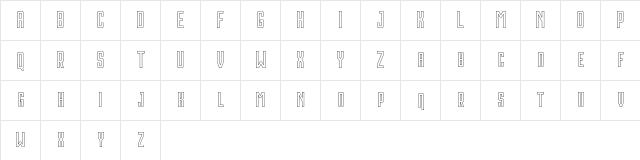
Houston Outline Regular
Design Context for Houston Outline Typeface
Houston Outline brings ornamental detail and strong personality to headlines and identities, where visual impact matters more than quiet functionality.
Font Pairing: Pair with a clean neutral sans-serif for body copy to let Houston Outline's character lead without overwhelming the composition.
Pro Tip: Treat Houston Outline as the centrepiece of your typographic hierarchy. One strong heading set in a decorative face can carry an entire layout.